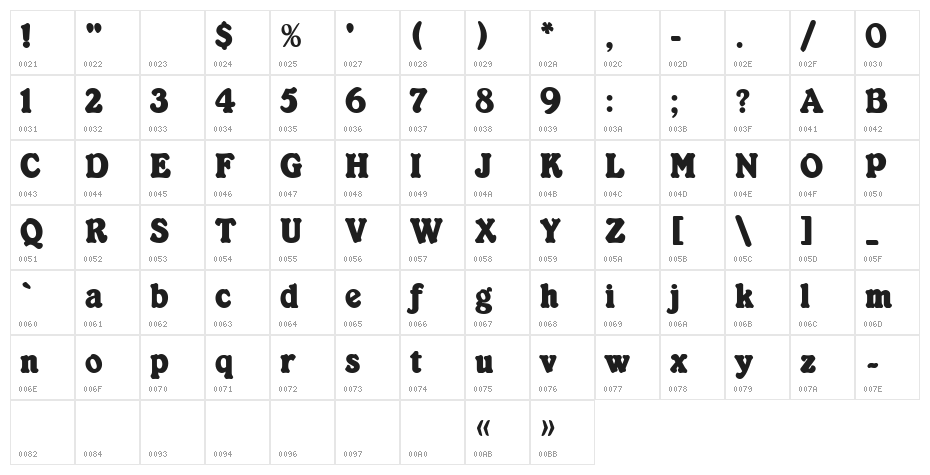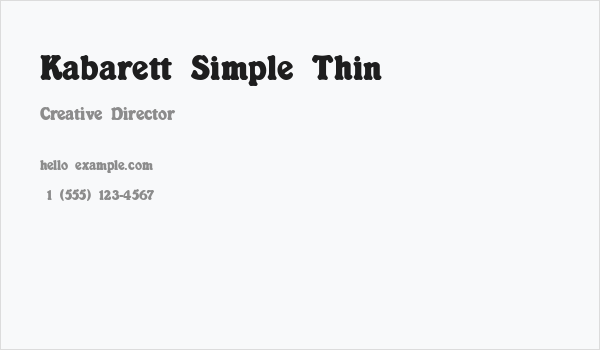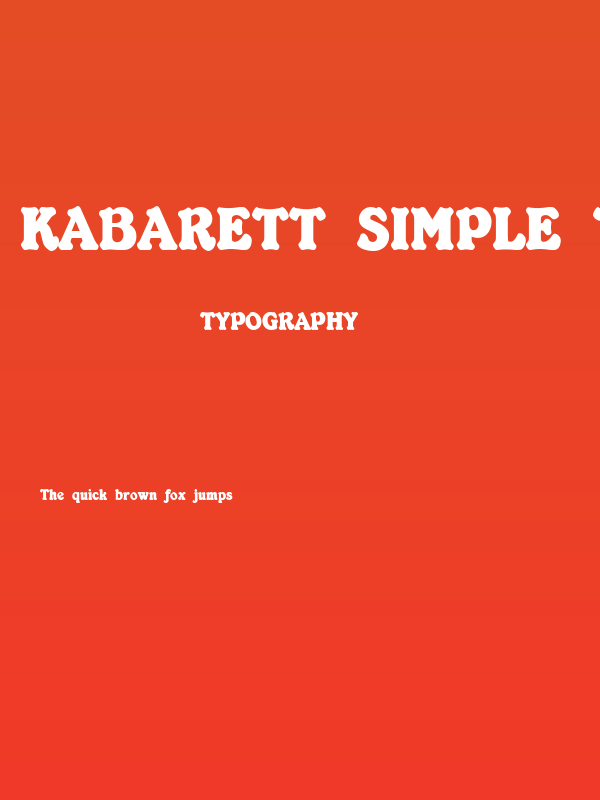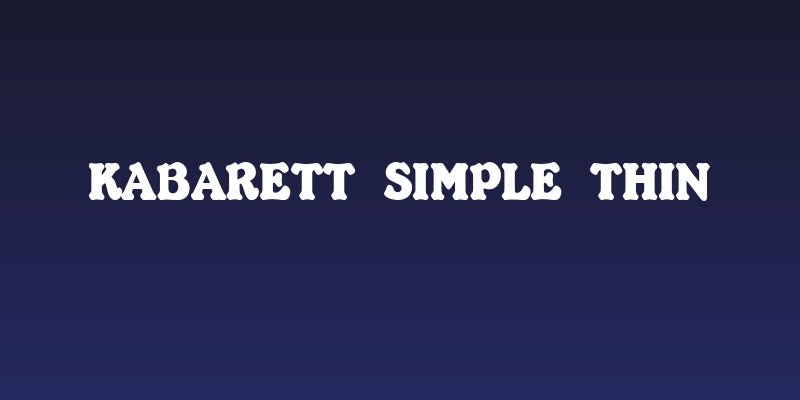
Kabarett Simple Thin Font
Kabarett Simple Thin Description
This font features a playful and decorative style with a unique, slightly whimsical appearance. The characters have a bold presence with irregular, wavy edges that give them a hand-crafted feel. The uppercase and lowercase letters maintain a consistent design, with the uppercase being slightly larger and more pronounced. The numbers follow the same stylistic approach, ensuring uniformity across all characters. Special characters are included, matching the overall aesthetic. This font is ideal for projects that require a touch of creativity and flair.
Proposed ProjectsIdeal for posters, invitations, branding, and any creative projects needing a unique touch.